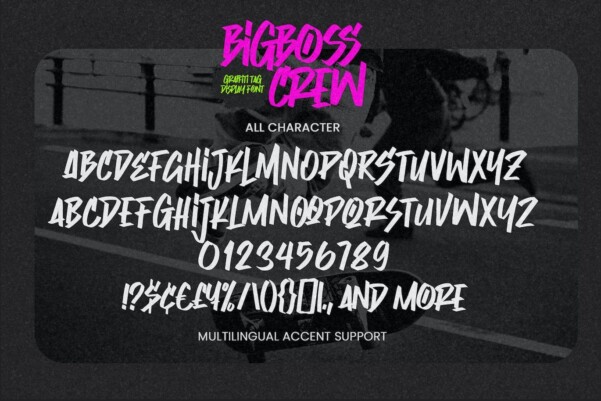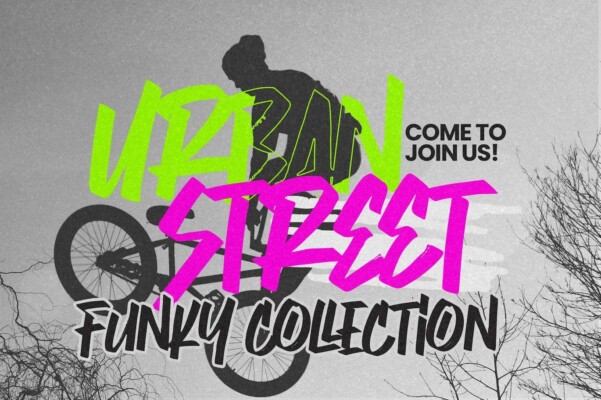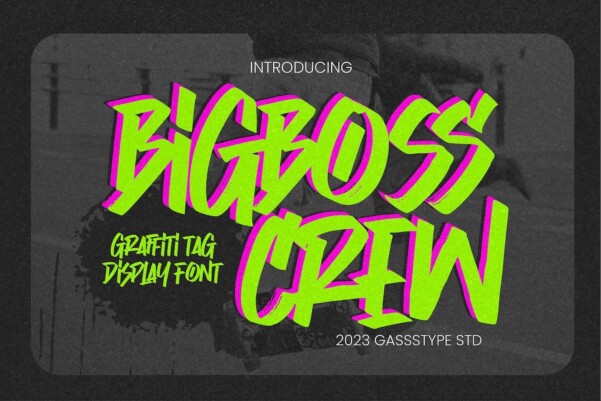
BigBoss Crew Font
BigBoss Crew Font, This Is Graffiti Tag Display Font. This is a natural textured and chic style with a light and funky style.
This BigBoss Crew font is ideal for your next creative project such as logos, printed quotes, invitations, cards, product packaging, headers, logotype, letterhead, poster, design. This font is ideal for your creative projects such as watermarking on photography, and perfect for logos and brands, invitations, advertisements, product designs, stationery, wedding designs, labels, product packaging, special events or anything who needs a taste for handwriting. This makes your text look charming, authentic and casual.